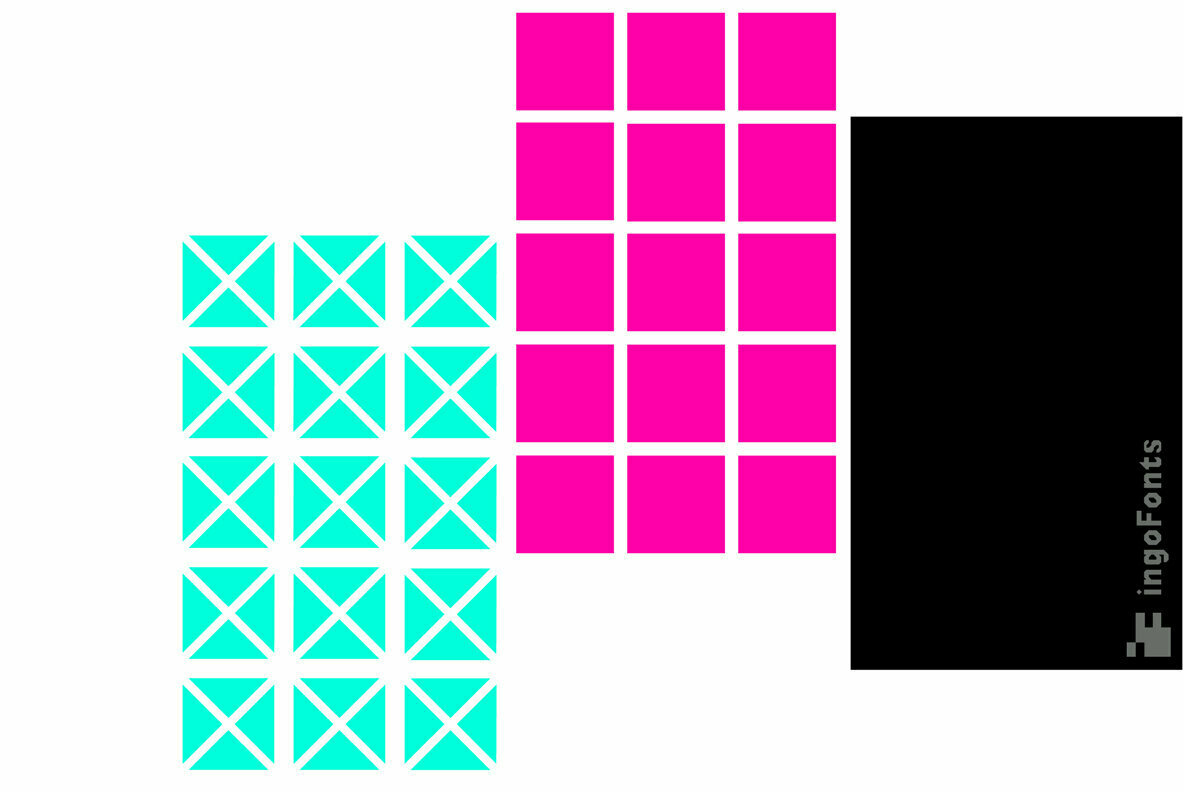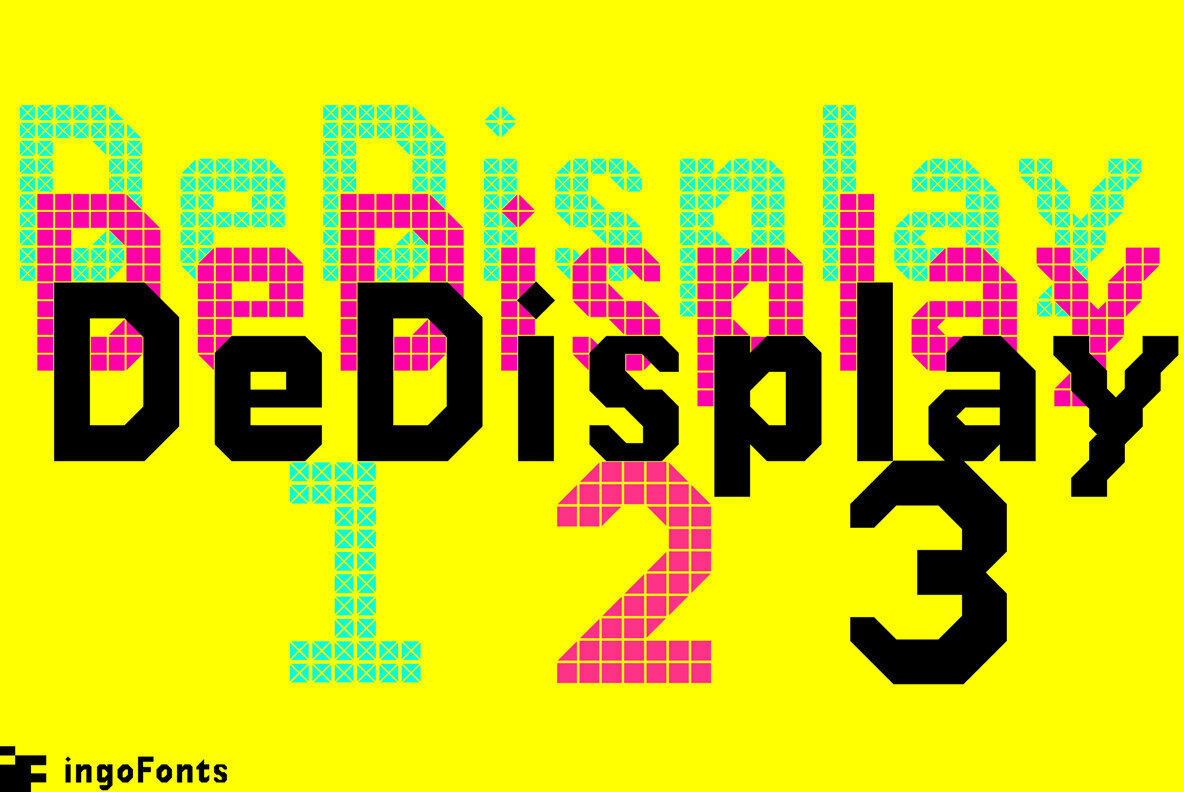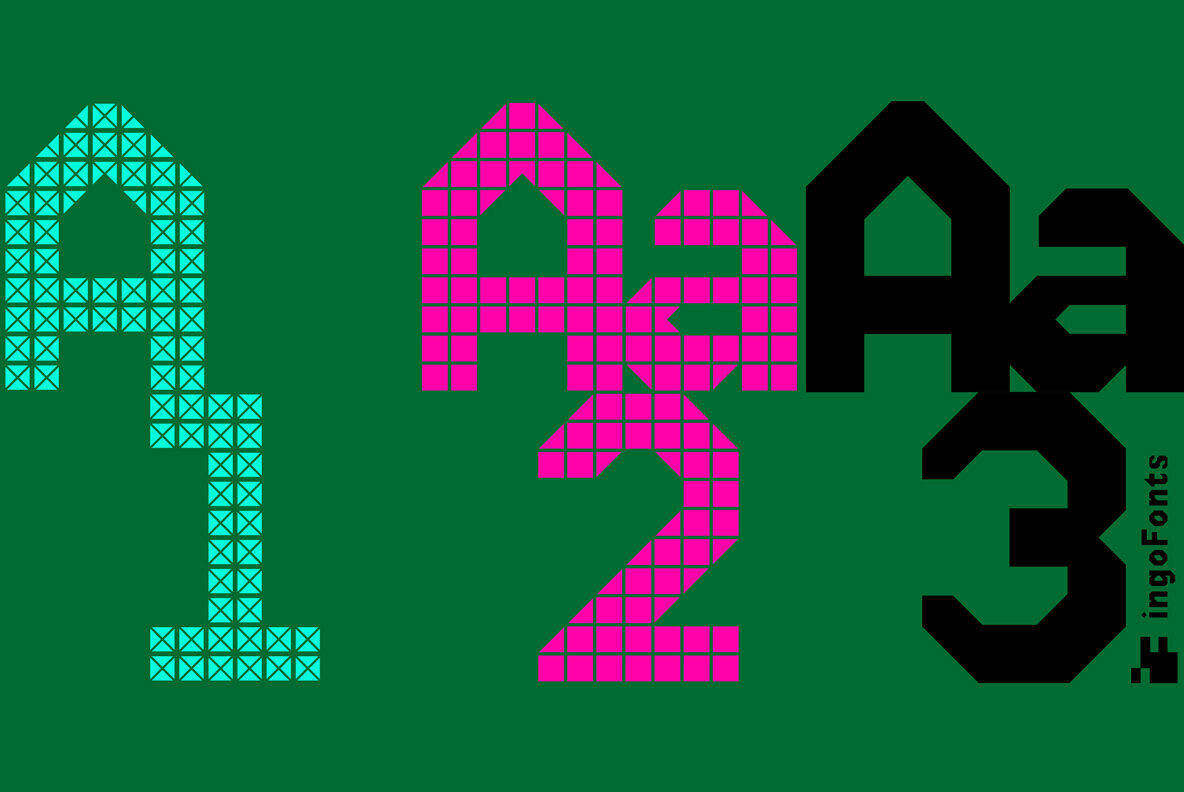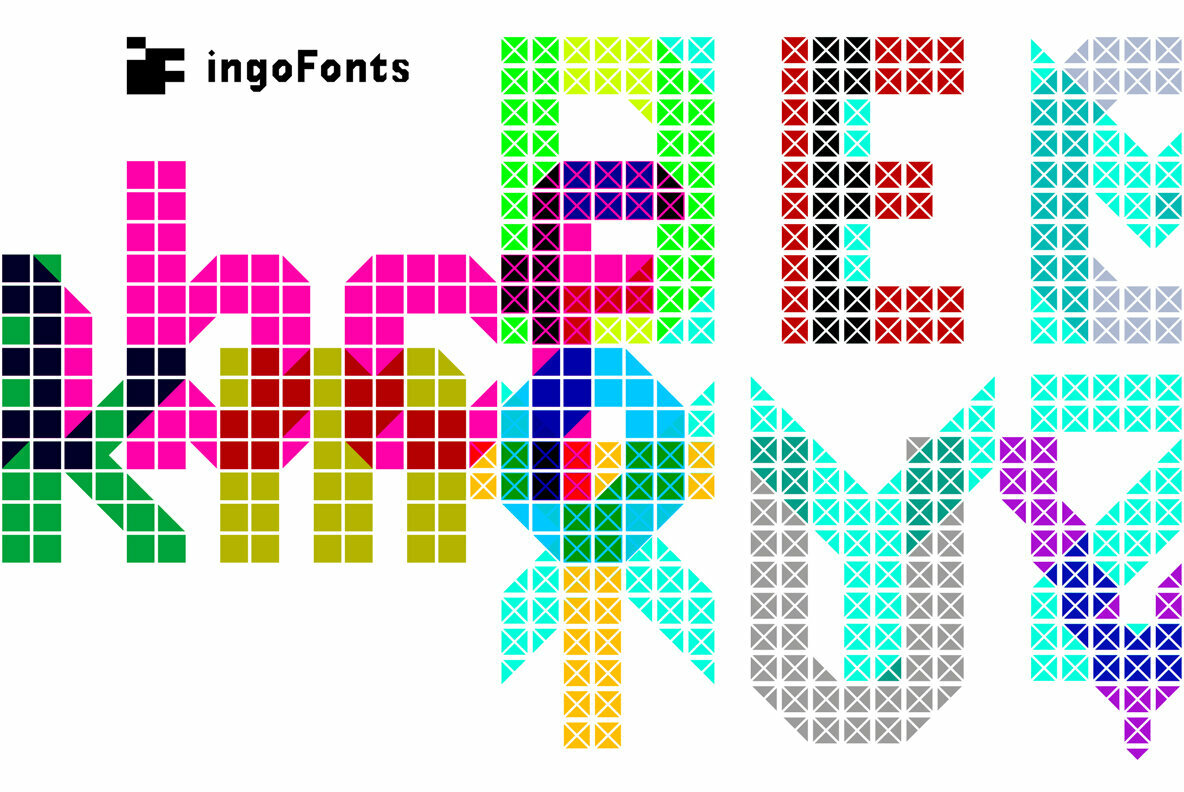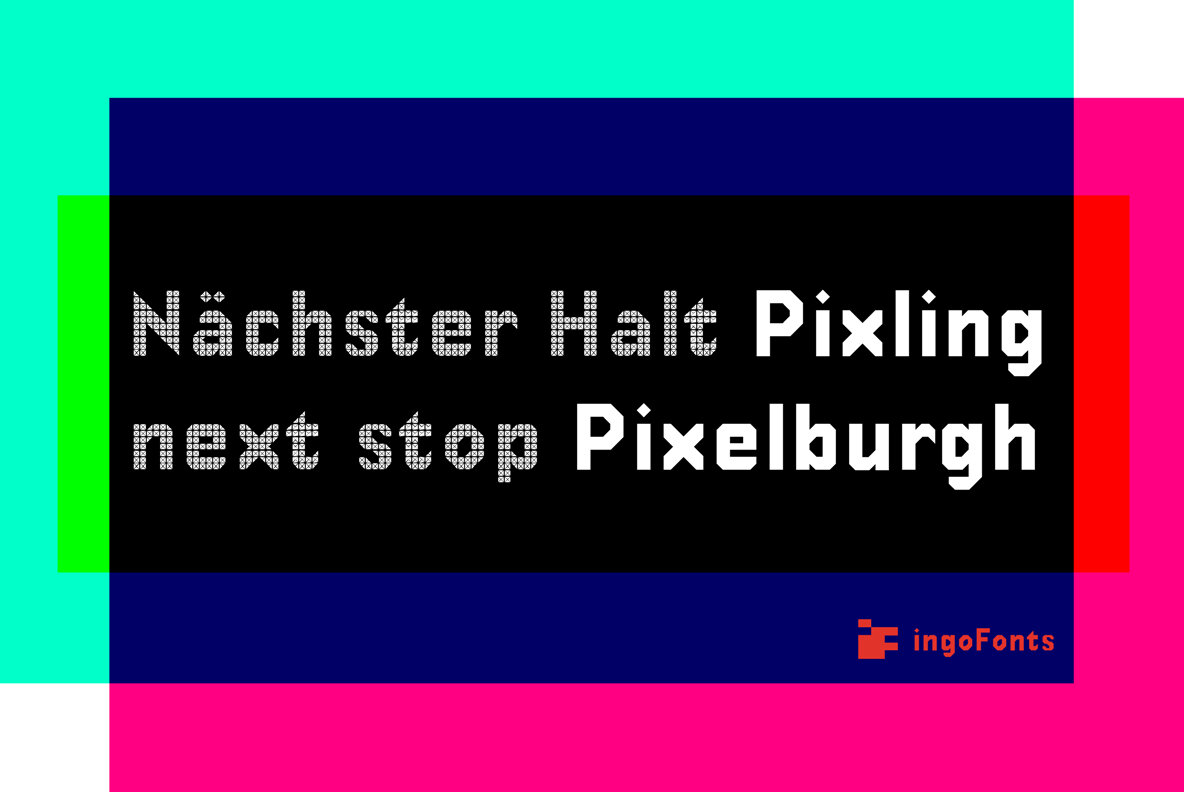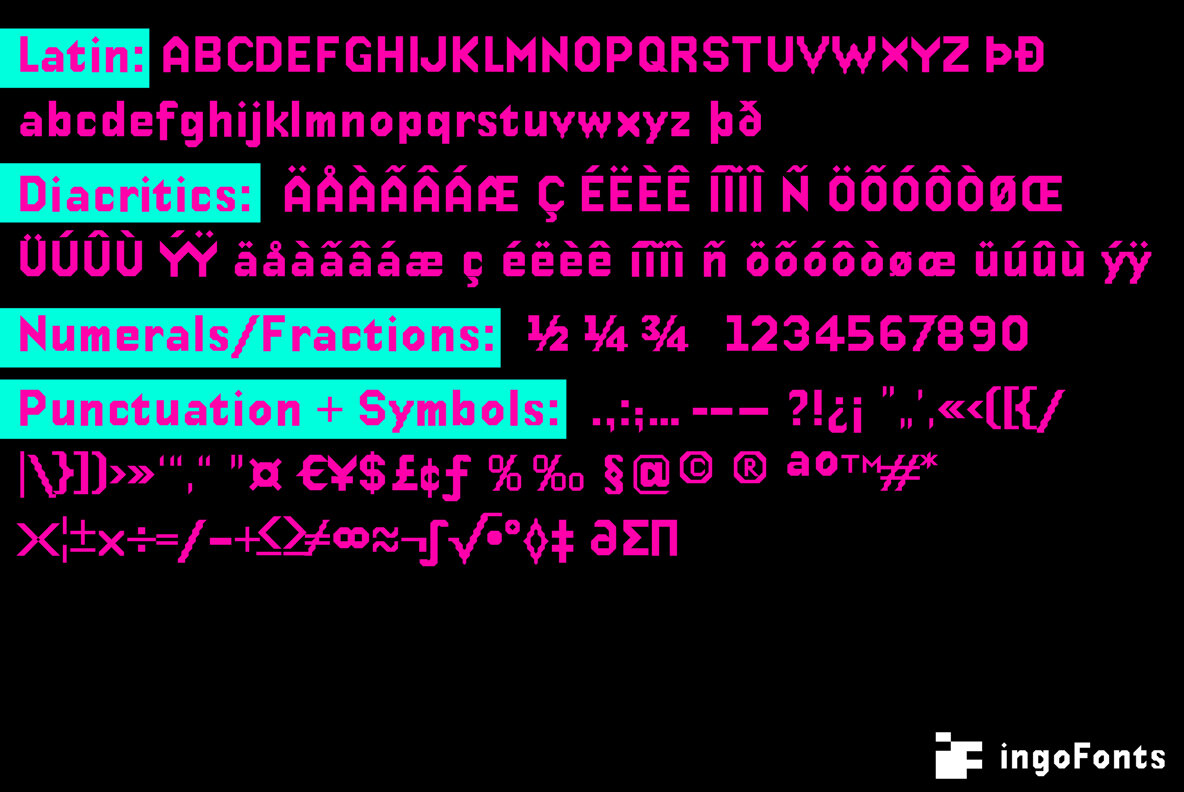
DeDisplay Font
A type designed in a grid, like on display panels.
DeDisplay is this kind of type, constructed from tiny triangles which are in turn grouped in small squares. The stem widths are formed by two squares; the height of upper case characters is 10, the x-height 7 squares.
Type is not only printed. There were always and still are a number of forms of type versions which function completely differently. Even very early in the history of script there were attempts to combine a few single elements into the diverse forms of individual characters and also efforts to construct the forms of letters within a geometric grid system. The “instructions” of Albrecht Dürer are probably most well-known.
But although designers of past centuries assumed the ideal to basically be an artist’s handwritten script, the idea which developed in the course of mechanization was to “build” characters in a building block system only by stringing together one basic element — the so-called grid type was discovered, represented most commonly today by »pixel types.« But even before computers, there were display systems which presented types with the help of a mechanical grid display, like the display panels in public transportation (bus, train) or at airports and train stations.
In a streetcar, I met up with a modern variation of this display which reveals the name of each tram stop as it is approached. This system was based on a customary coarse square grid, but the individual squares were also divided again diagonally in four triangles.
In this way it is possible to display slants and to simulate round forms more accurately as with only squares. The displayed characters still aren’t comparable to a decent typeface — on the contrary, the lower case letters are surprisingly ugly — but they form a much more legible type than that of ordinary [quadrate] grid types.
DeDisplay is available in three versions: DeDisplay 1 is the complex original with spaces between the triangles, DeDisplay 2 forgoes dividing the triangles and thus appears somewhat darker or “bold,” and DeDisplay 3 is to some extent the “black” and doesn’t even include spaces between the individual squares.